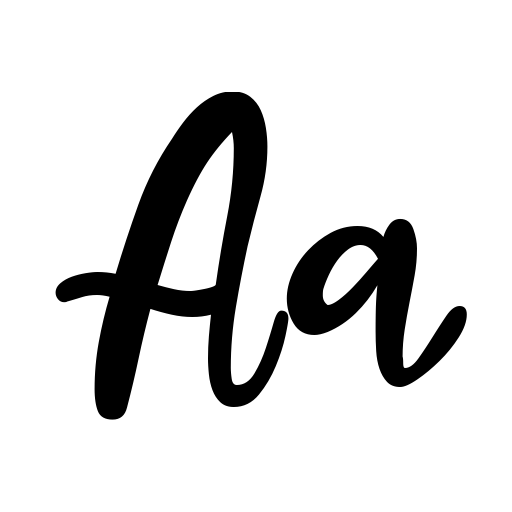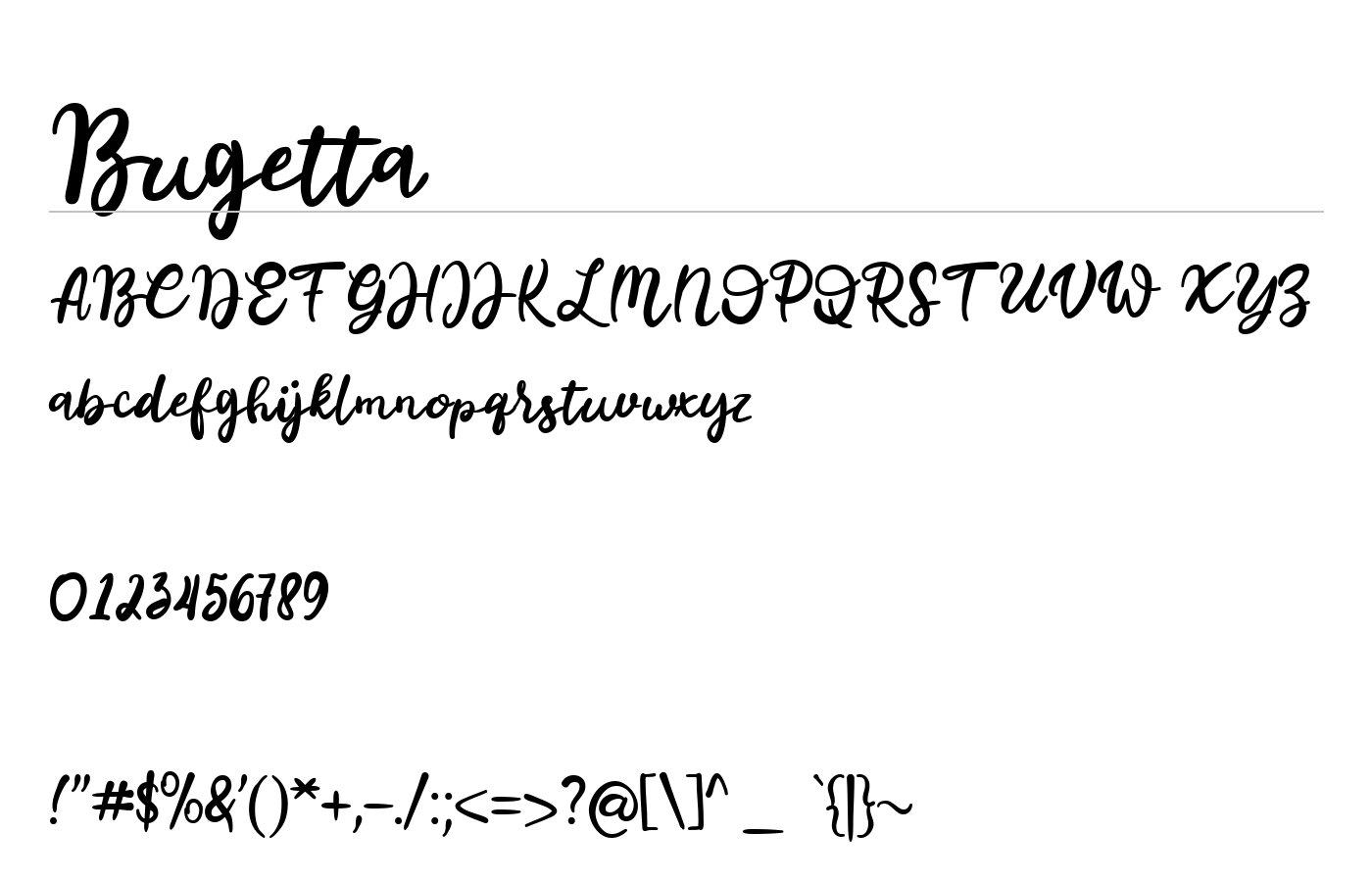
Bugetta is a lively script font with smooth, rounded strokes and a casual, handwritten feel. Its flowing letterforms and moderate contrast create a friendly yet elegant style, ideal for personal branding, invitations, and creative projects needing a warm, approachable touch. This font works best in headlines and logos where a stylish, informal character is desired.
Bugetta Font
About Bugetta Font